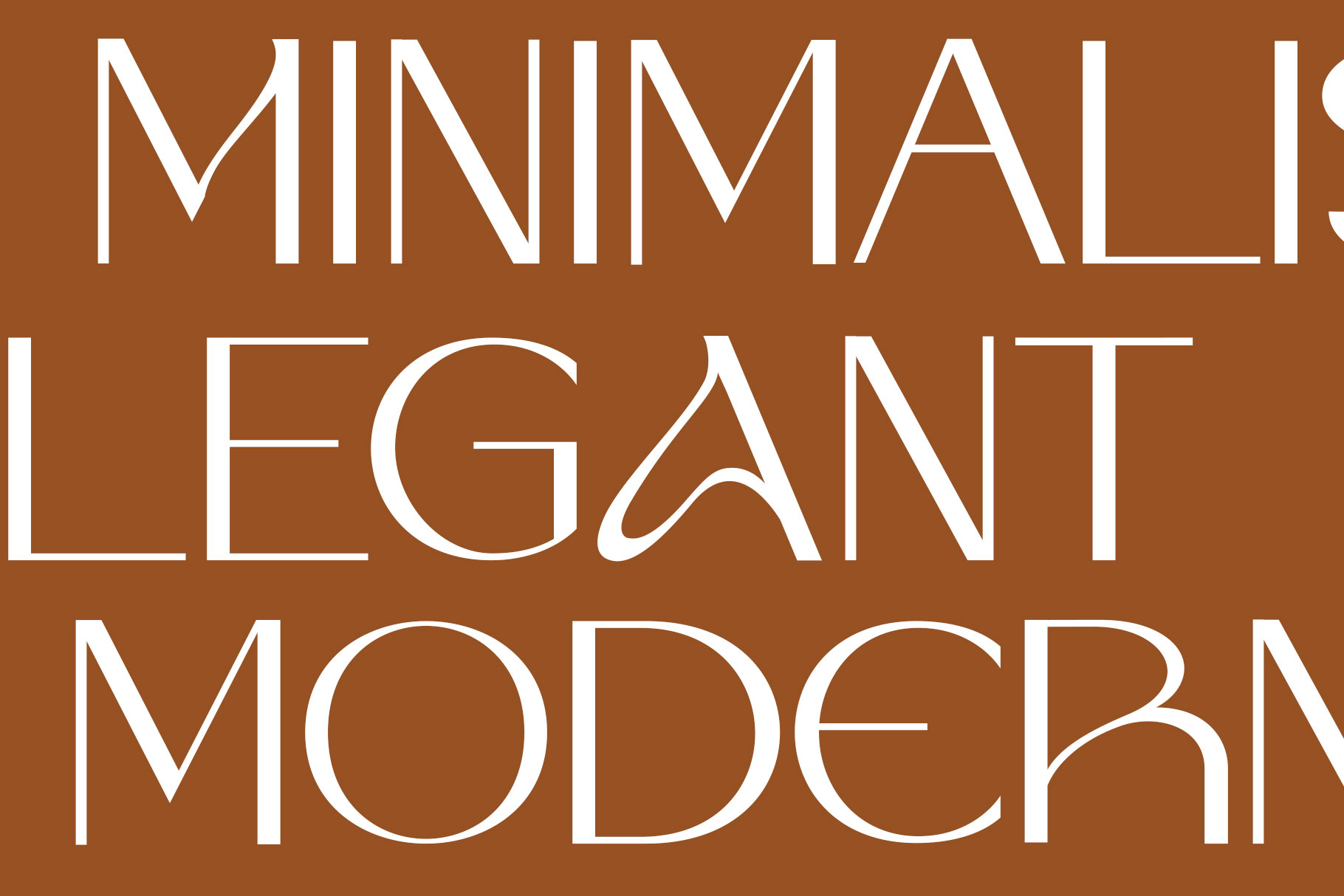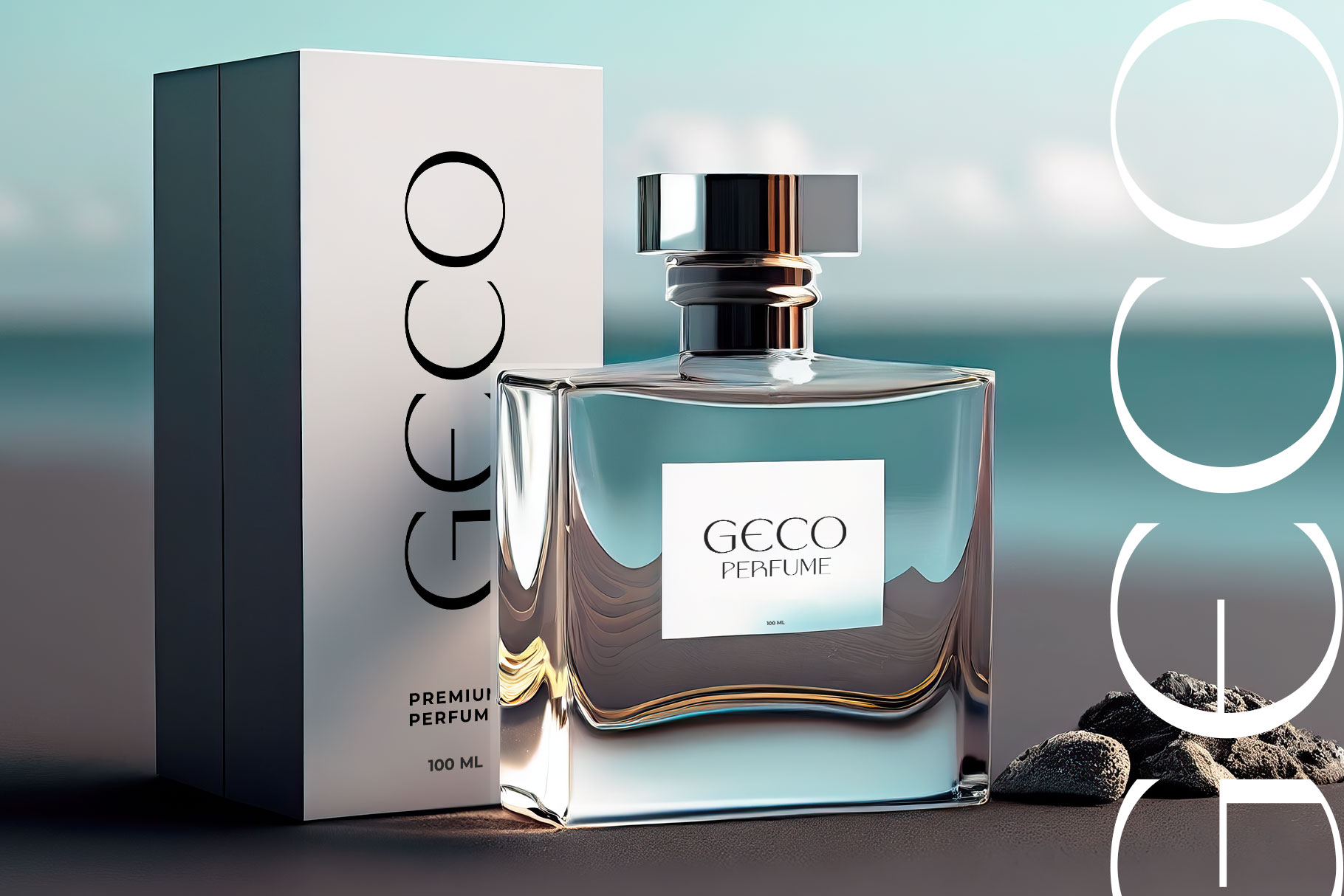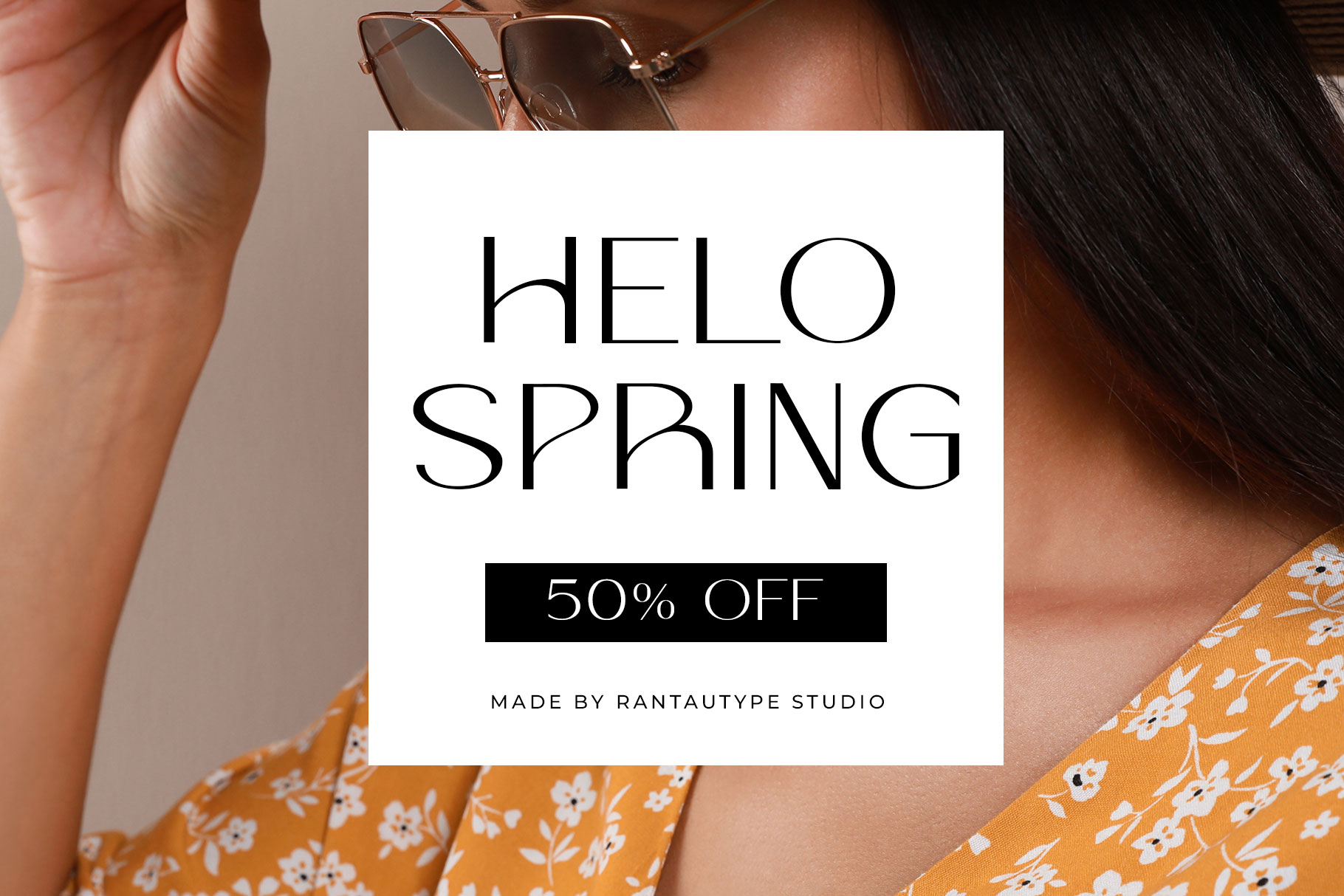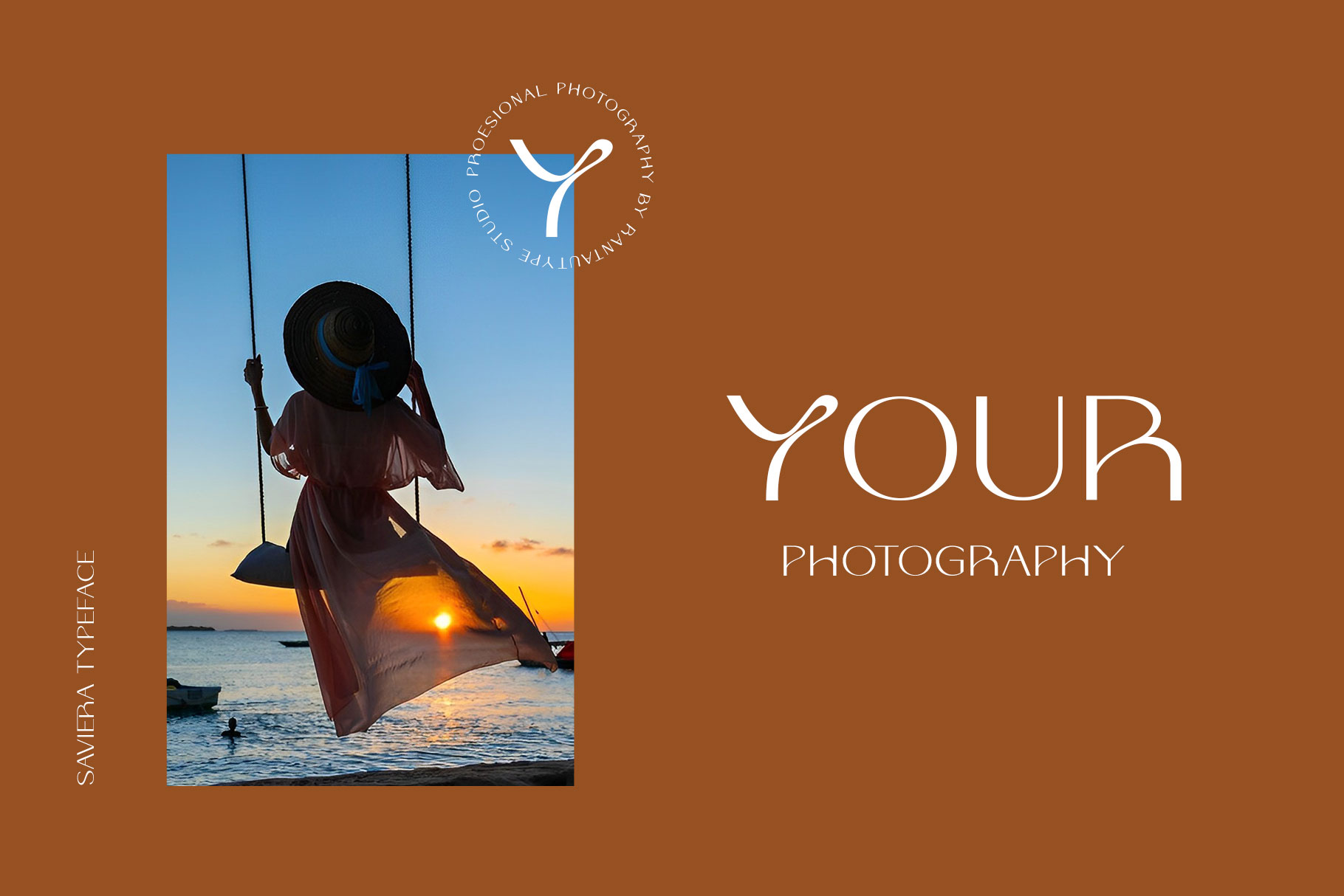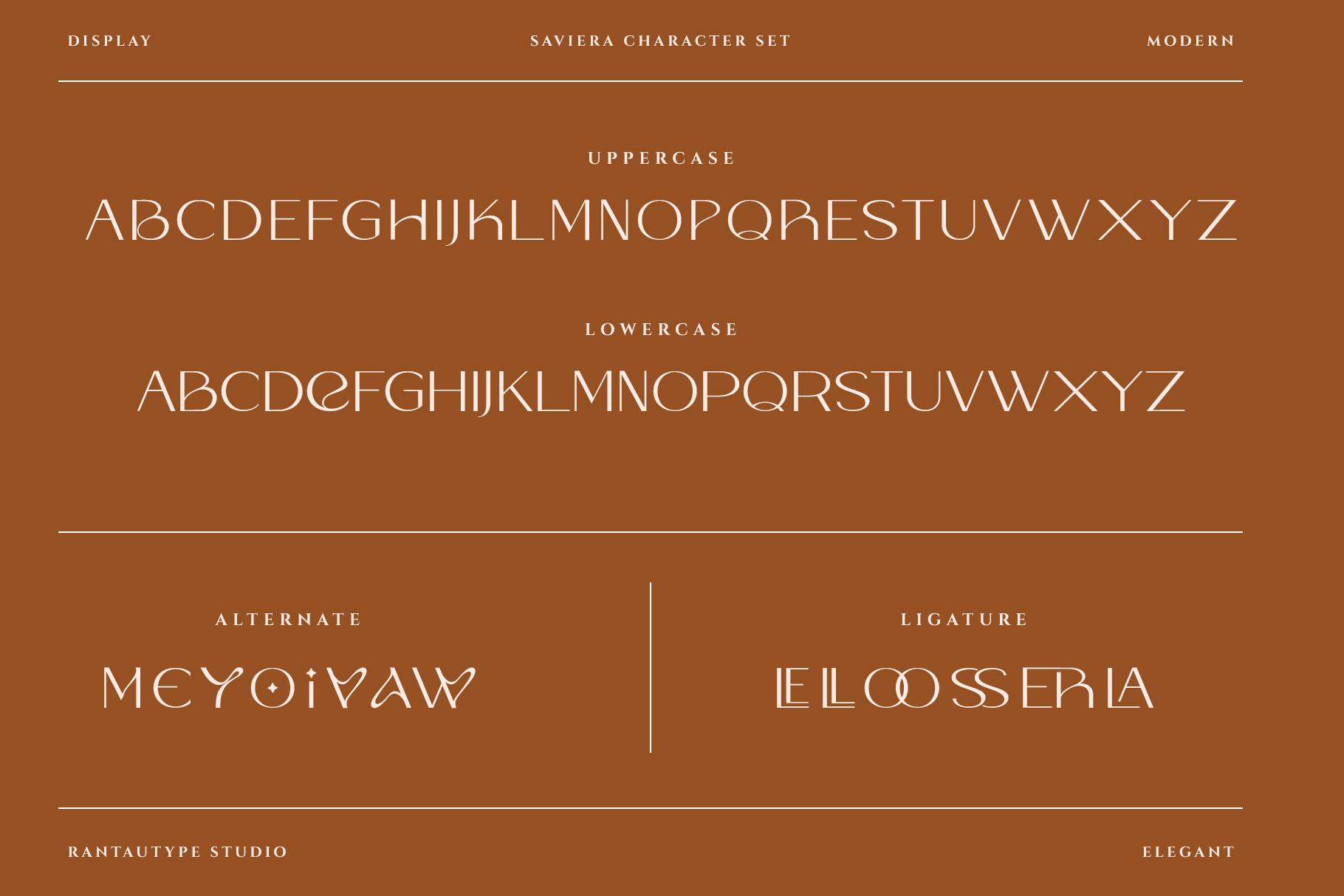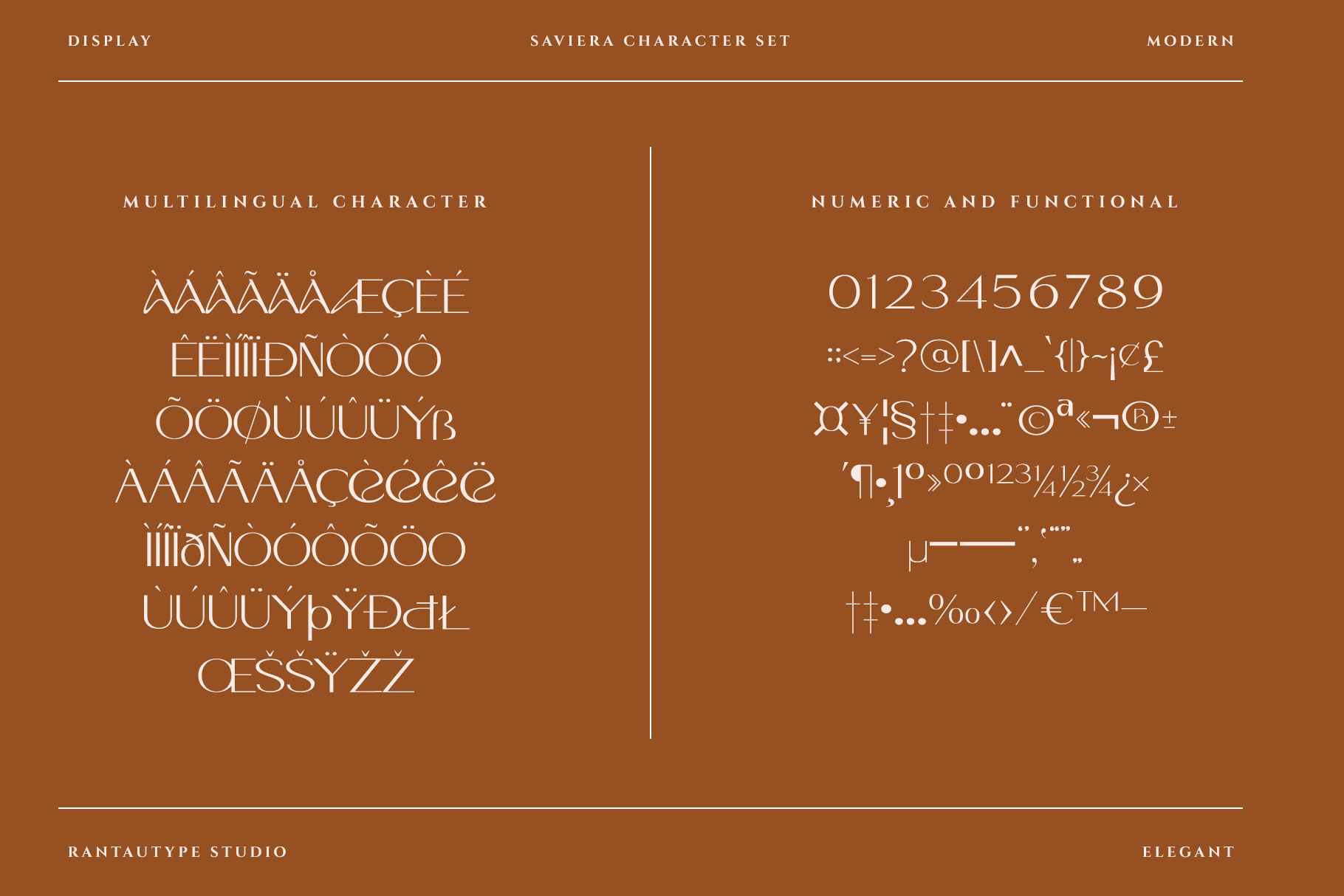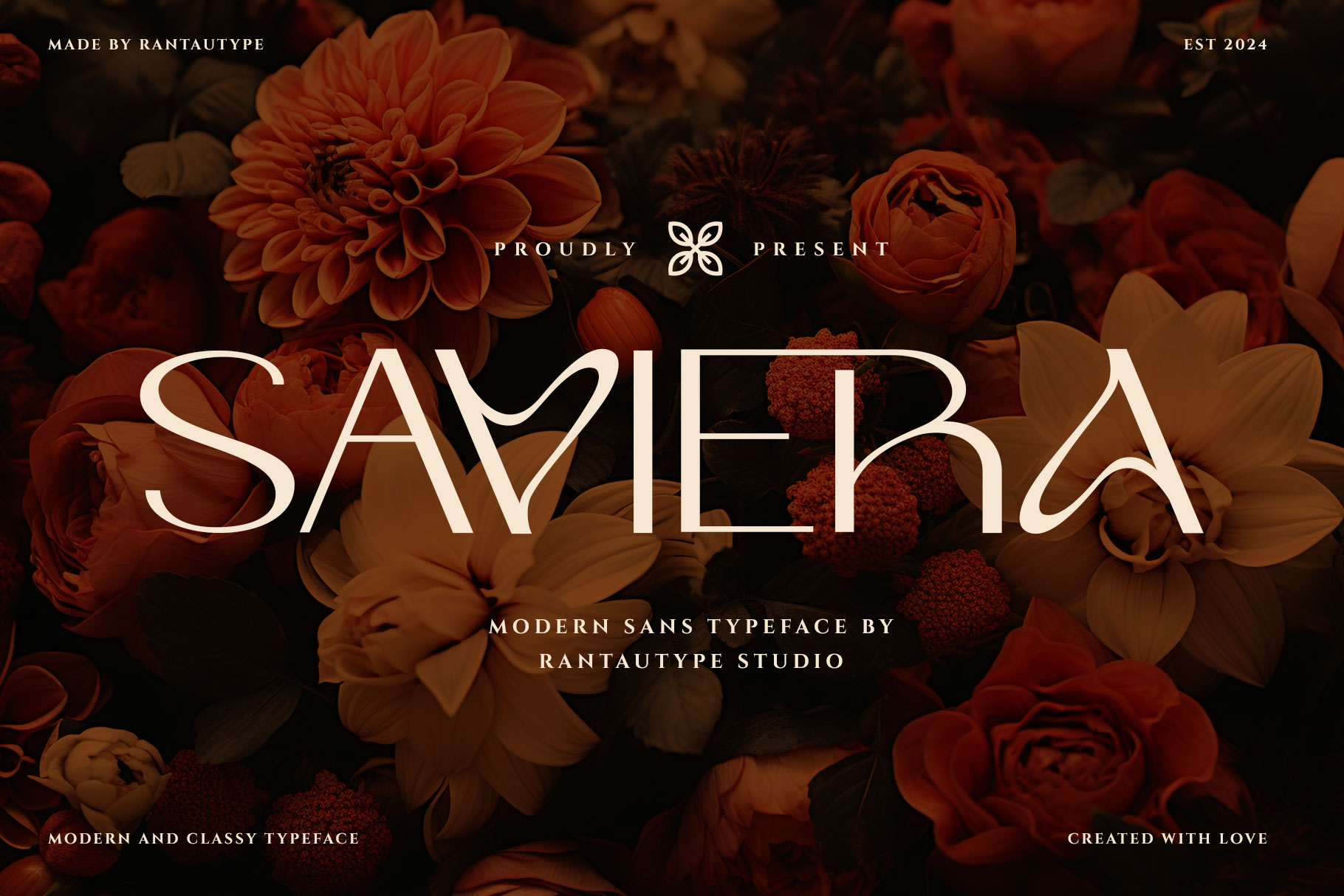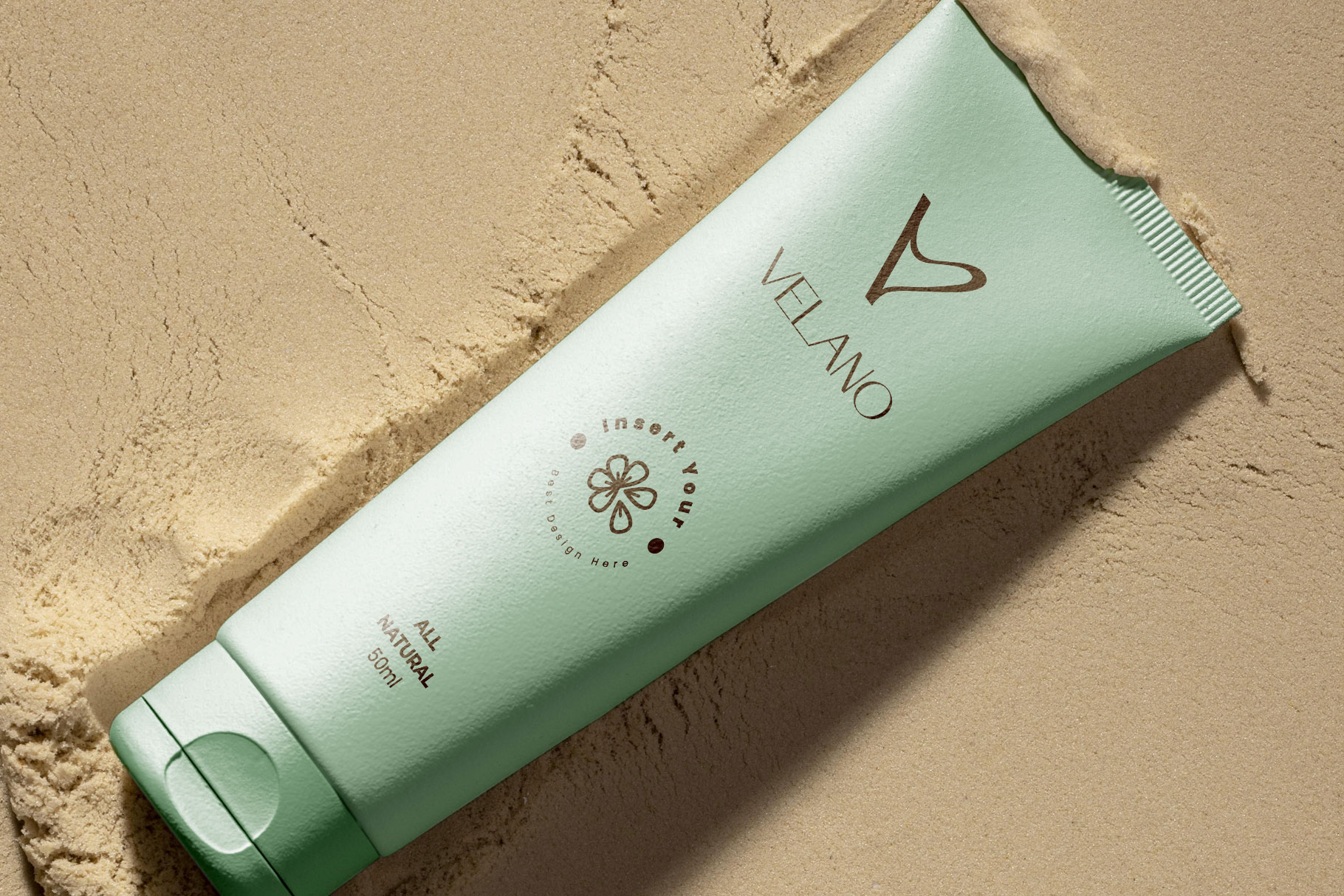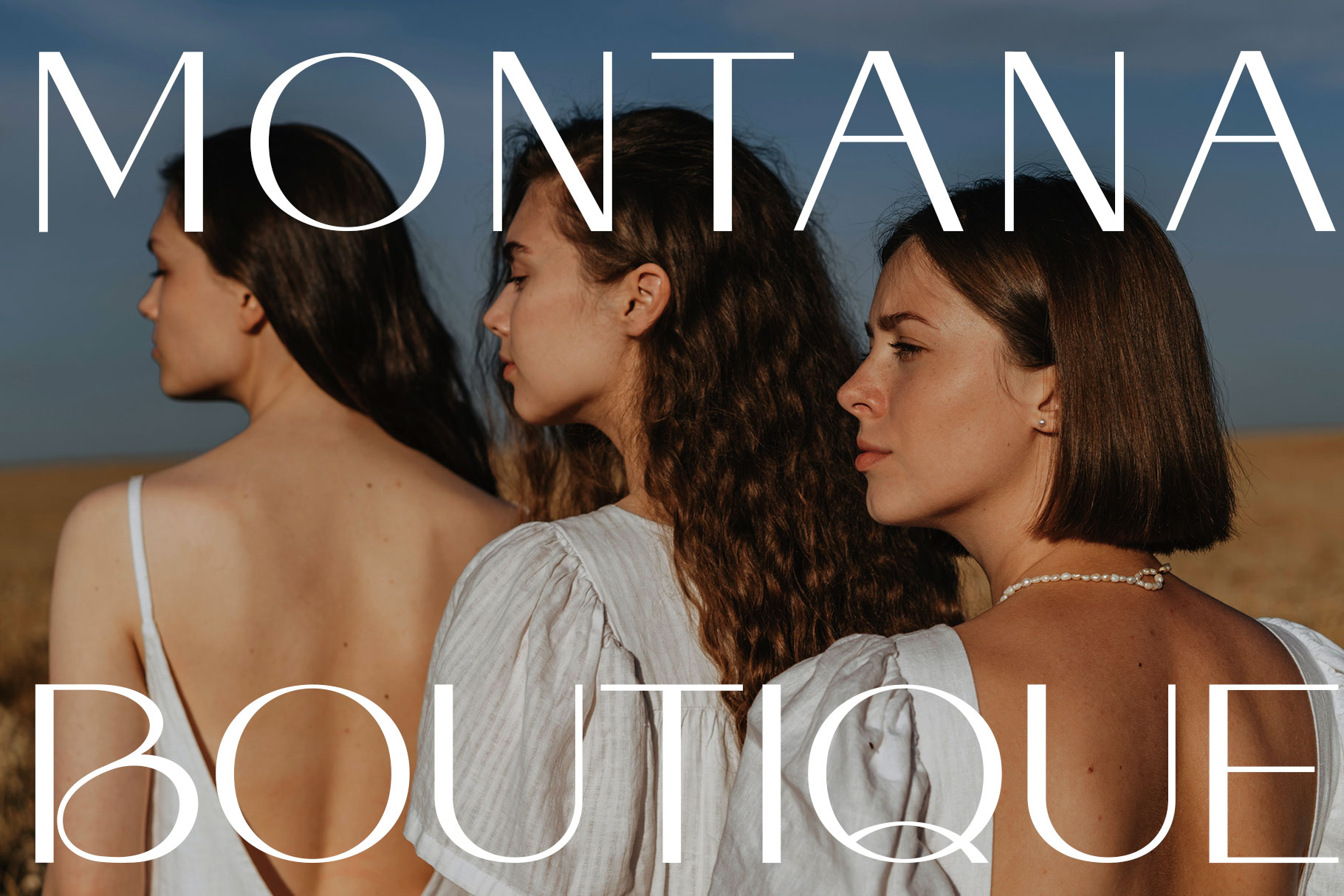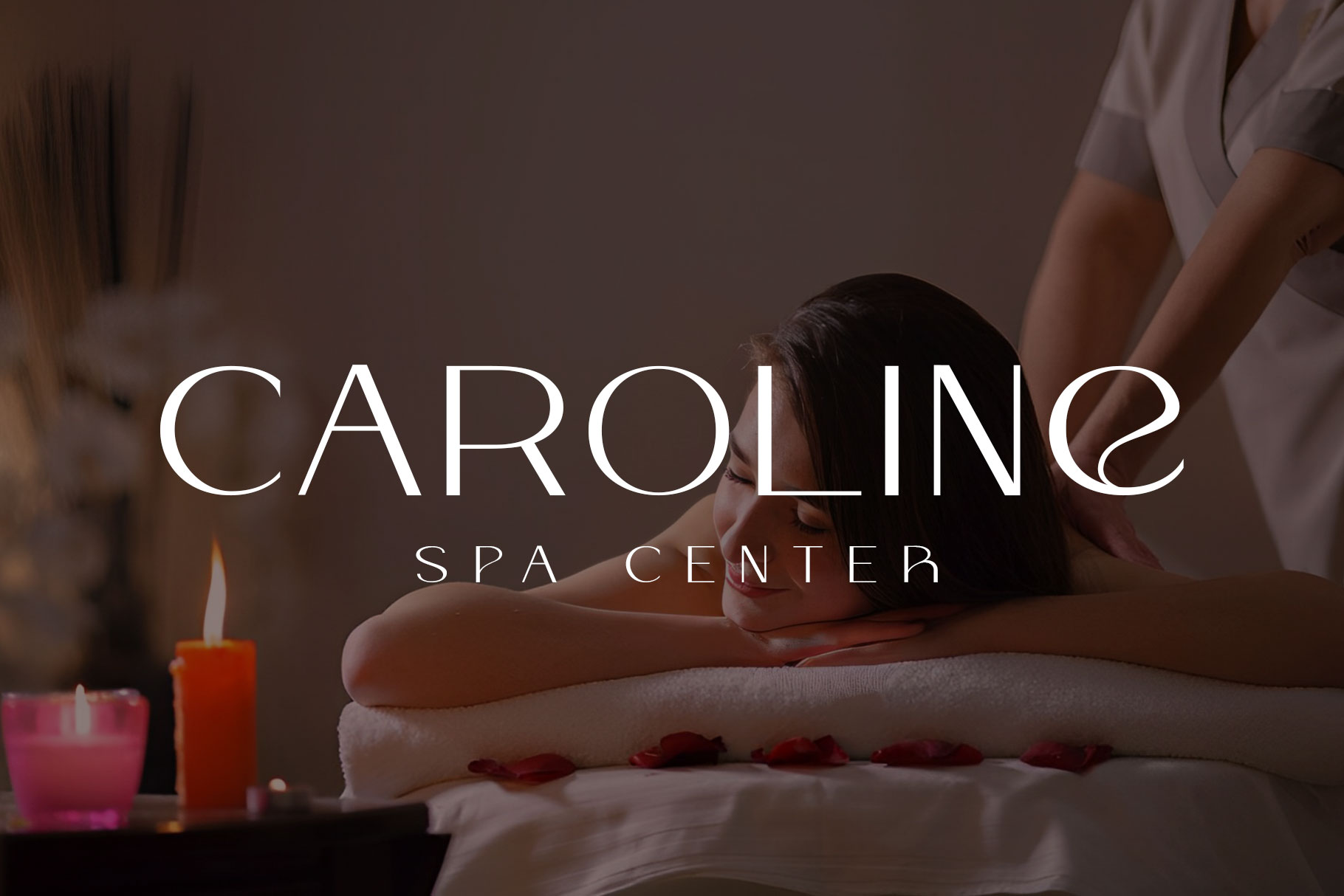
Saviera Modern Sans Typeface
Saviera is modern and elegant typeface inspire by fahion brand and minimalist style. Saviera come to help you make a visual design project stand out.
Saviera is a perfectly choice for any creative endeavor, chic, lifestyle design such as logos, advertisements, watermark on photography, stationery, branding project, display and magazine, invitation, corporate brand, product design, label, business project and many other project with elegant touch.